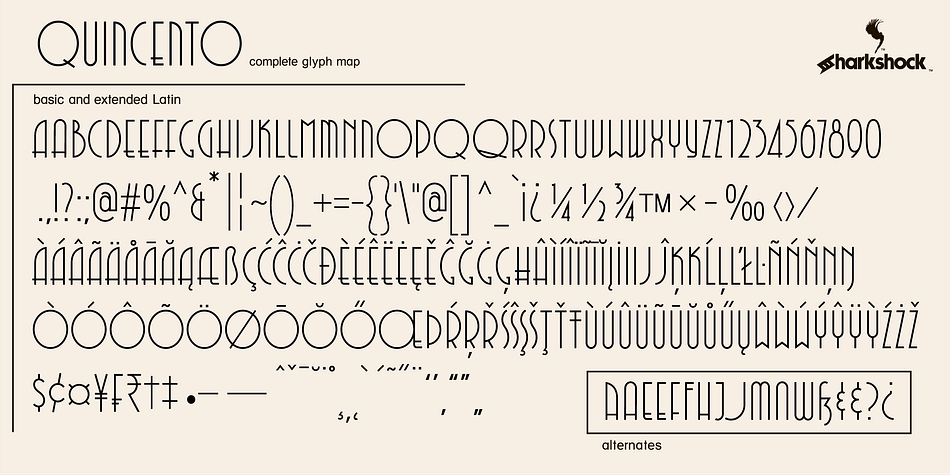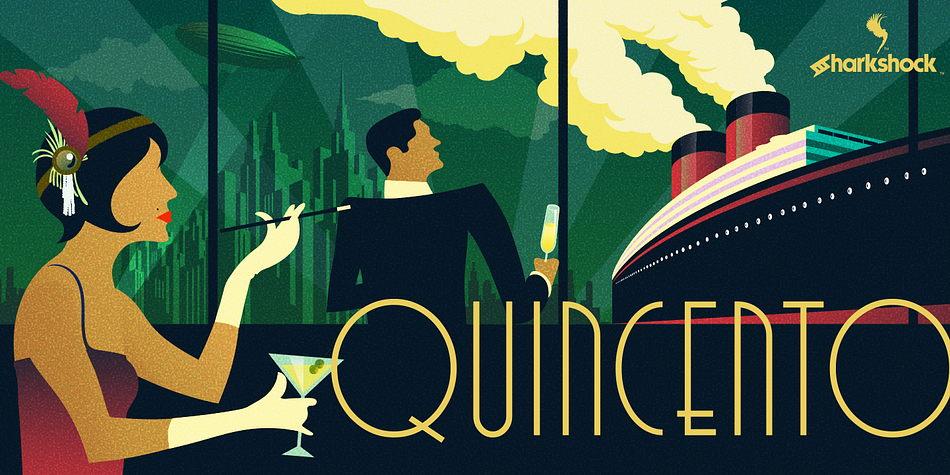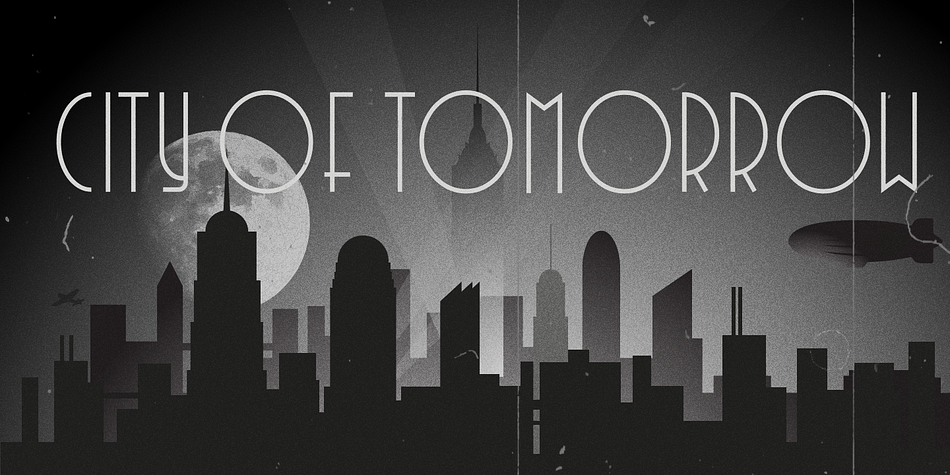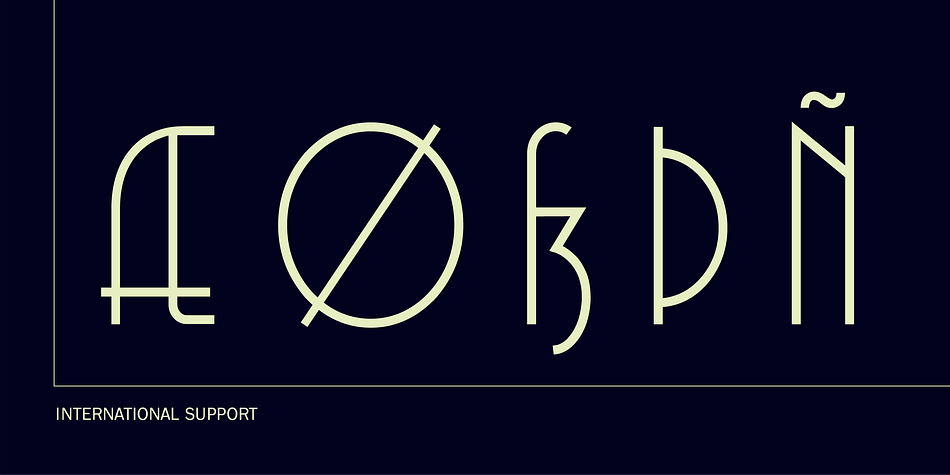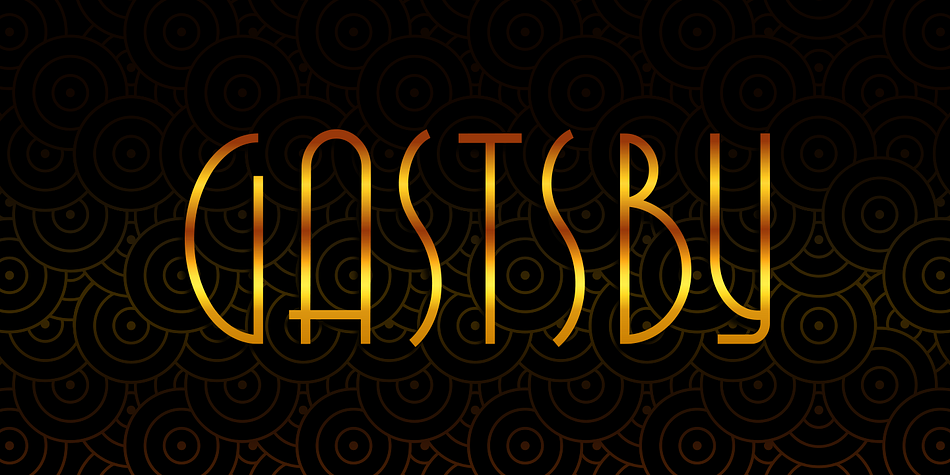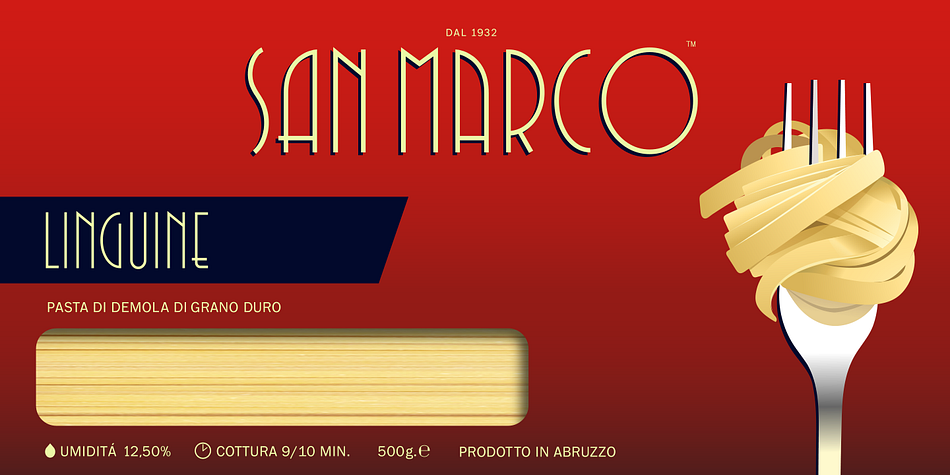
Quincento
Designed by Dennis Ludlow, Quincento is an art deco font family published by Sharkshock.
Quincento, pronounced queen-chento, is an Art Deco inspired font defined by its use of verticals and geometric shapes. While working on a previous family, Goldroom, there were several ideas and elements that were left out of the final version. Instead of adding more variation to an already busy project a new one was born with a completely different identity. This all caps display font alternates between sleek, thin curvature and sharp 90 degree angles. Rounded corners can be substituted in some instances by alternating between upper and lower case as well as alternate glyphs. Tall, undulating, and nostalgic, it captures the decorative vibe that dominated pop culture during the roaring twenties. Use it for a retro poster, restaurant logo, or Gatsby themed invites.
Quincento is equipped with Basic and extended Latin, punctuation, kerning, and alternates. Please check the glyph map for all supported characters.